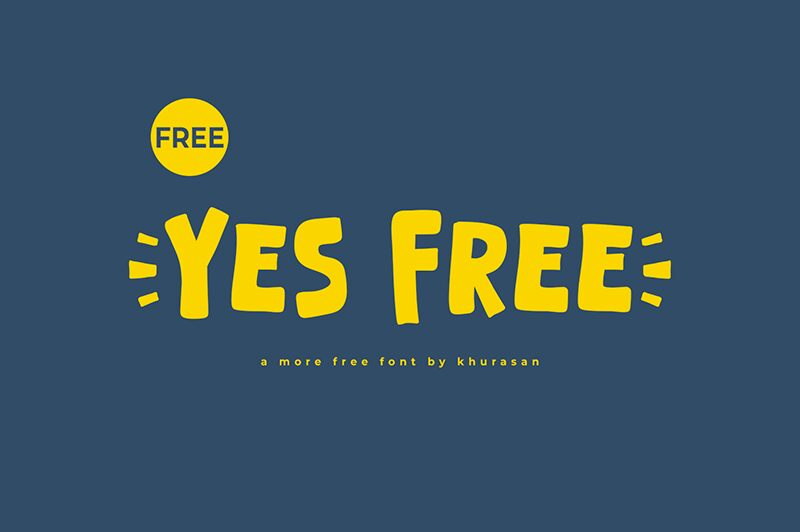
Yes Free
Yes Free font by Khurasan is a bold, cartoon-style display font that instantly captures attention with its playful and dynamic aesthetic. This free font boasts an exaggerated, chunky style perfect for adding a whimsical touch to any project. Its lively character makes it ideal for children's books, comic titles, advertising materials, or any design that seeks to convey fun and excitement.
For designers searching for a playful and impactful typeface that stands out, Yes Free is a must-download option. Leverage this unique font in your next creative endeavor to infuse it with a sense of joy and spontaneity. Perfect for both digital and print media, it offers wide versatility while maintaining a distinctive visual appeal. Discover the charm of Yes Free font today!